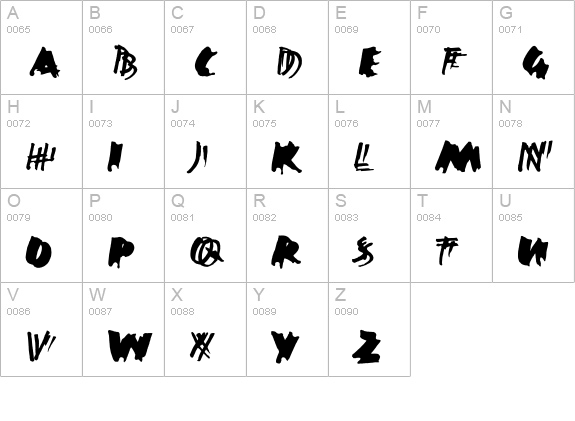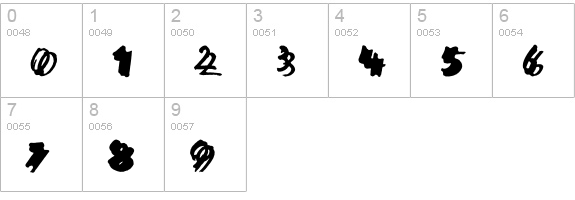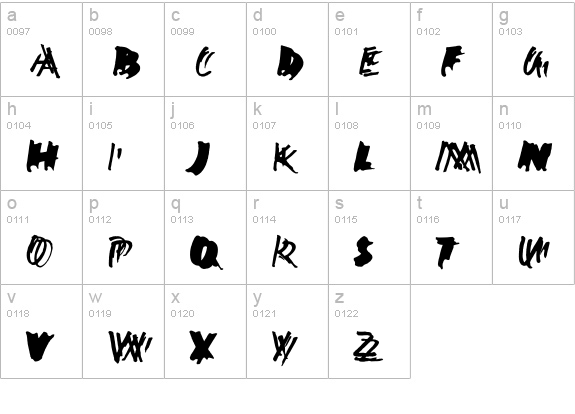
Ekttor Mixed Font Details
Ekttor Mixed font is a unique and versatile typeface that combines modern and classic elements to create a striking visual impact. This font features a harmonious balance between sharp edges and soft curves, making it suitable for a wide range of design projects. With its distinctive style and legibility, Ekttor Mixed font is perfect for branding, editorial design, and any creative endeavor that requires a touch of sophistication. The best part? Ekttor Mixed font is available for free download at FontsMarket.com. Experience the beauty and versatility of this stunning typeface without any cost. Whether you're a designer, artist, or enthusiast looking to enhance your projects, Ekttor Mixed font is a valuable addition to your font collection. Don't miss out on this opportunity to elevate your designs with this exquisite font. Download Ekttor Mixed today and let your creativity shine!